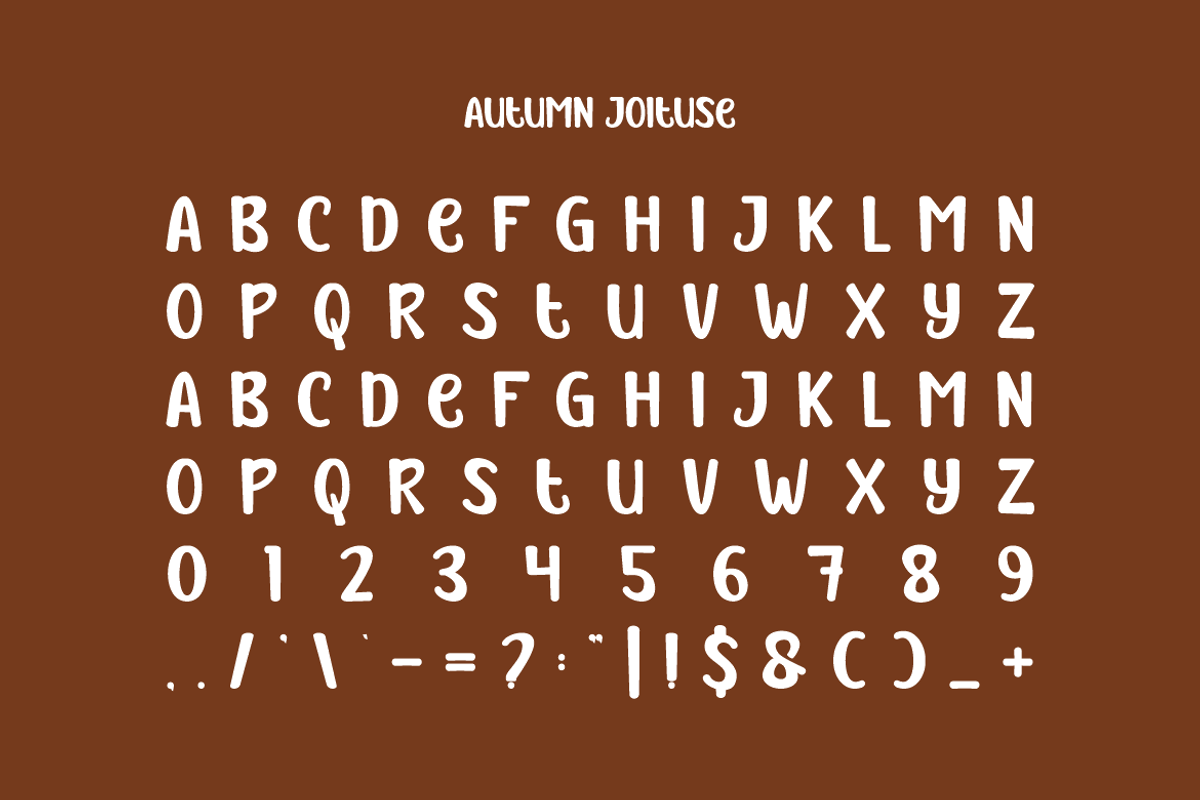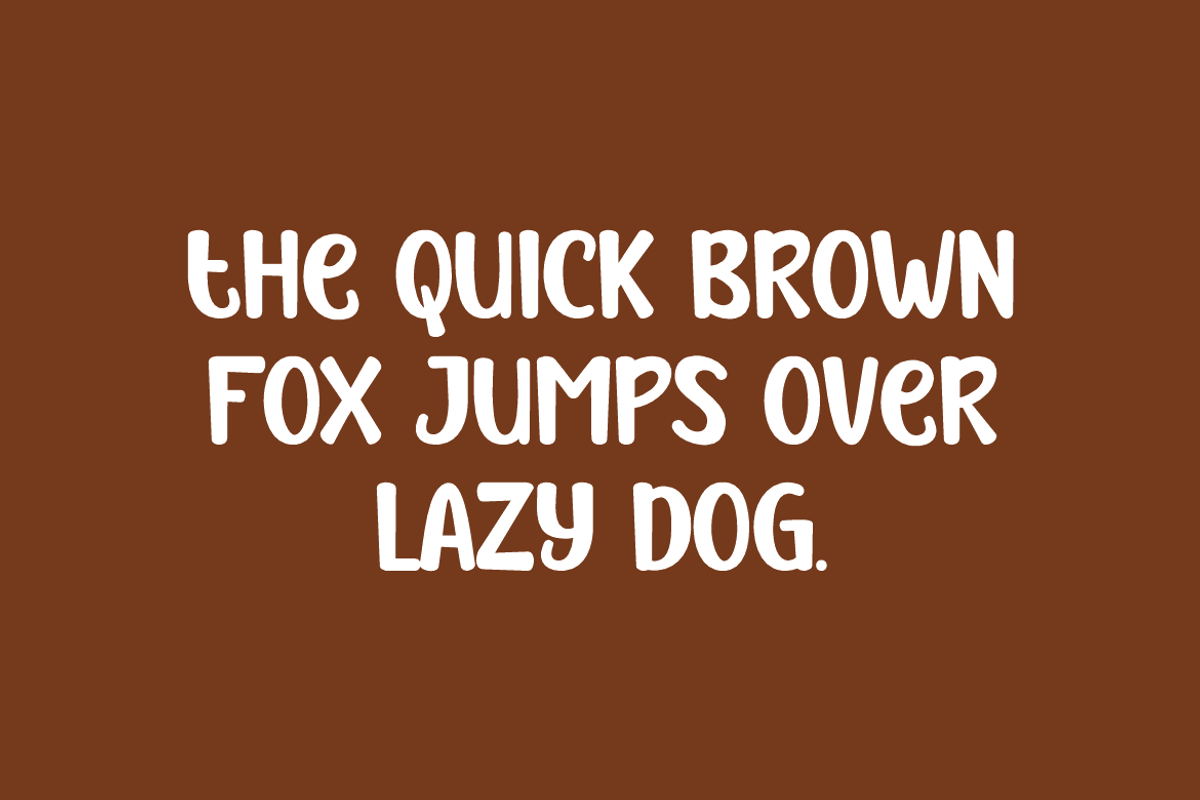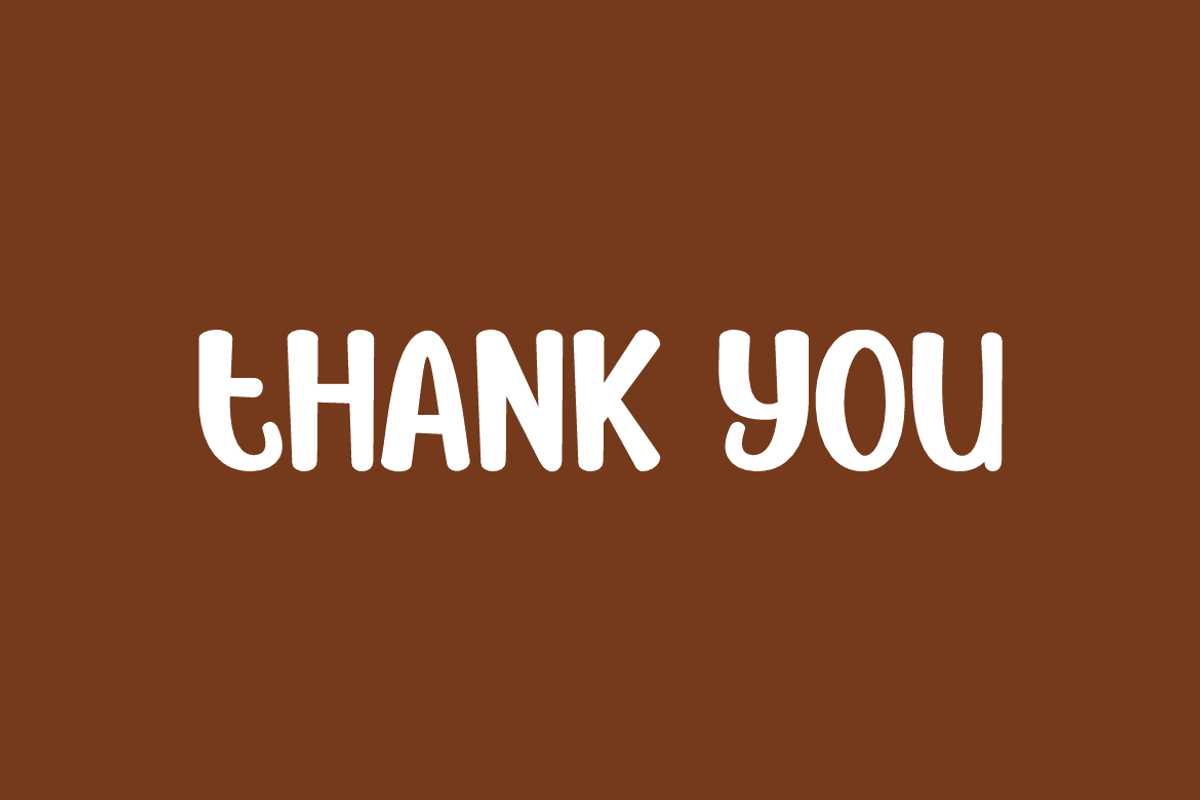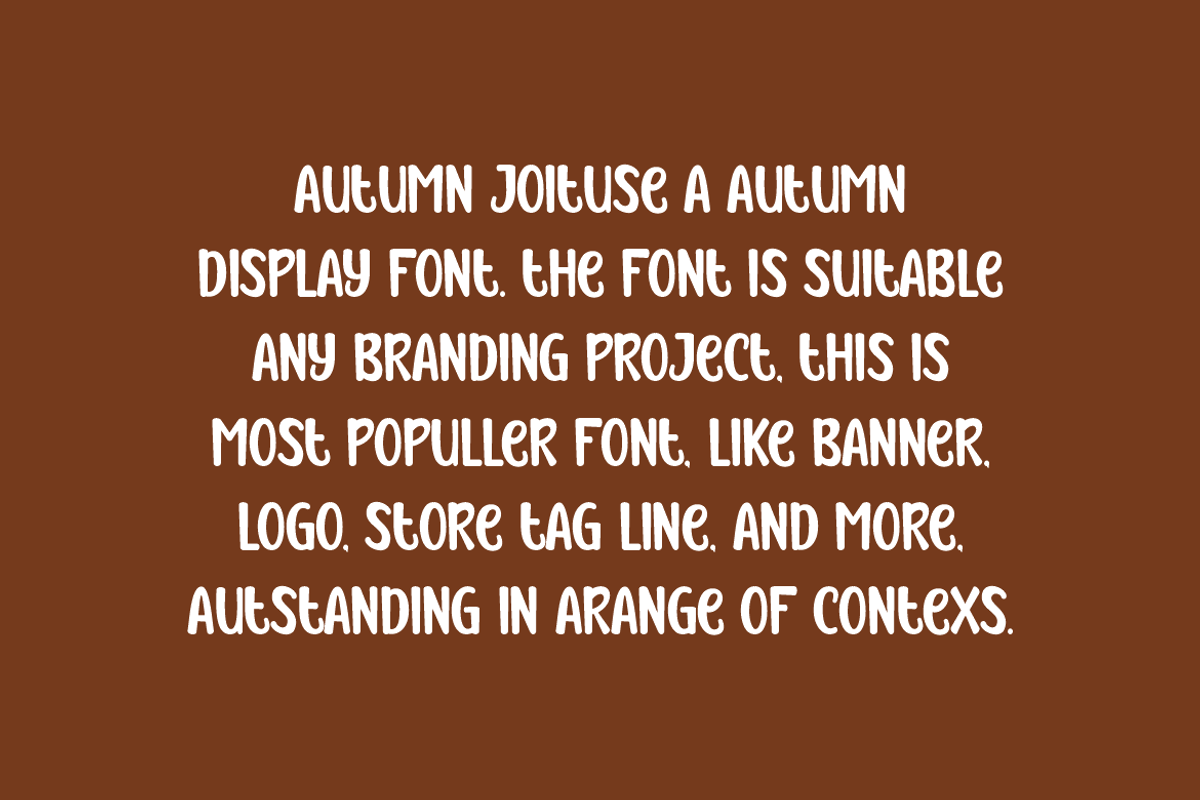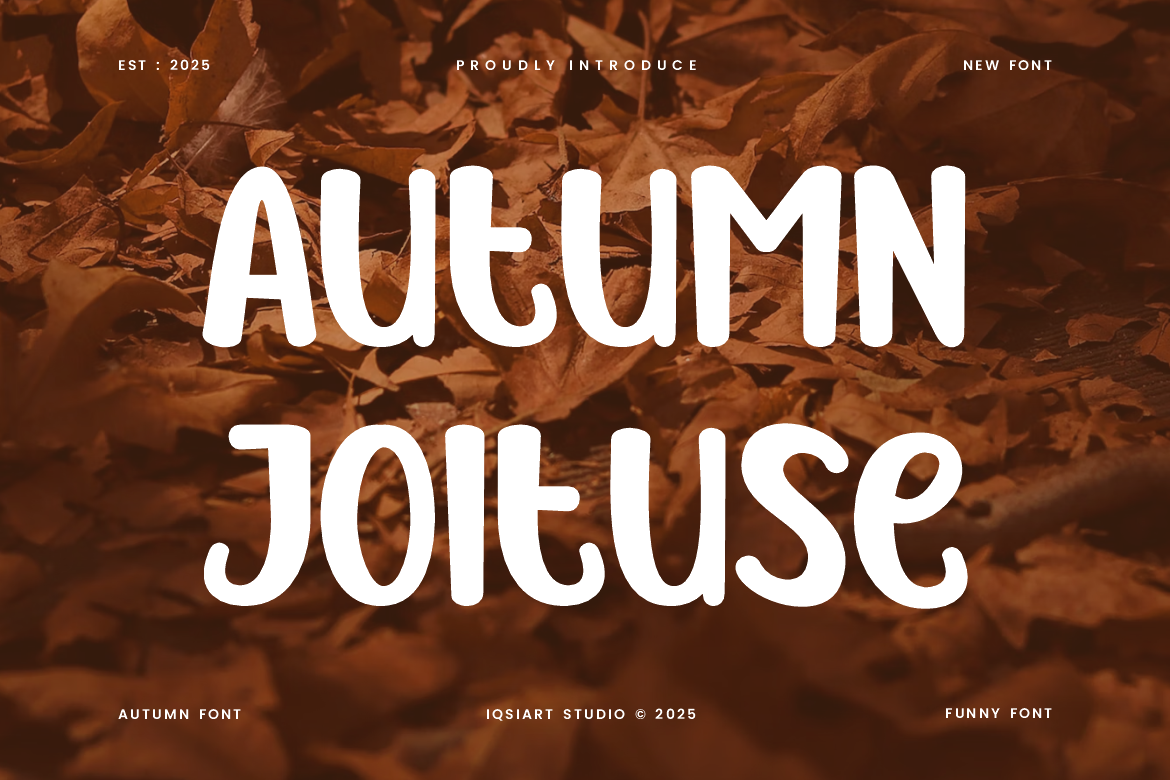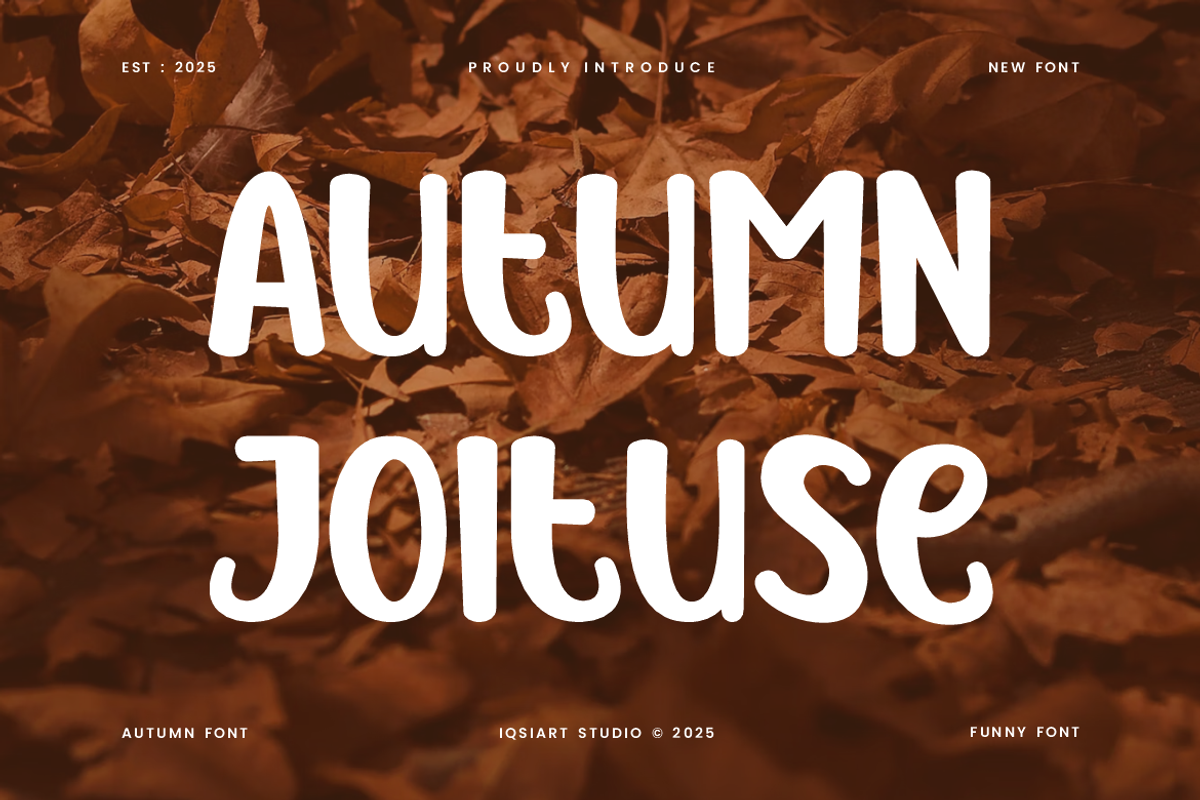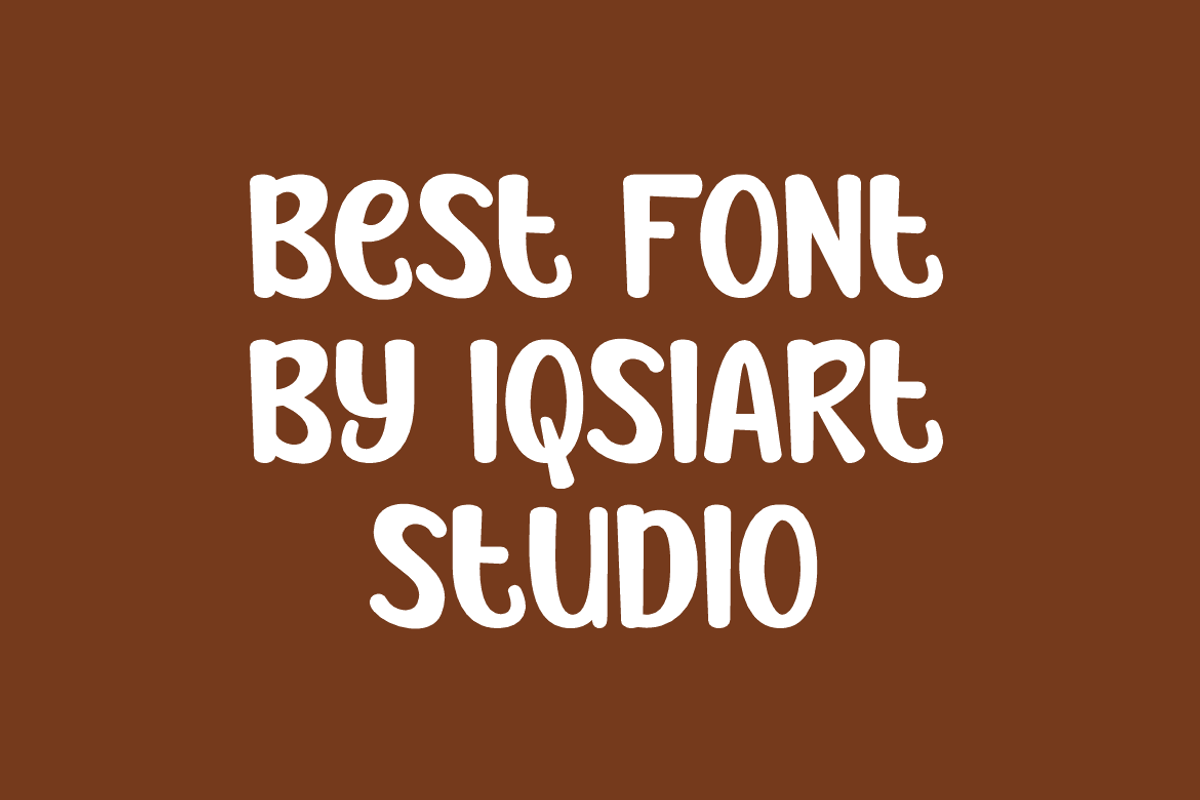
Autumn Joituse - Tropic Font
Autumn JoituseFont is a best and authentic display font. This font can be used for your various needs. We provide various themes and font styles. visit our profile to get a wide variety of themes and different font styles you need.